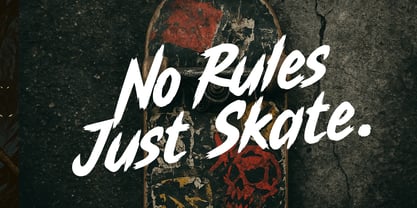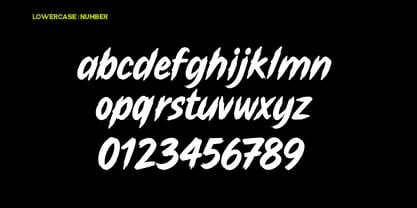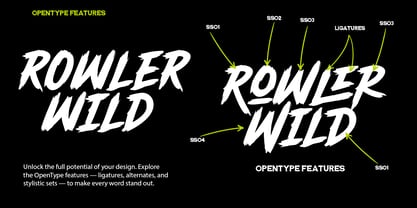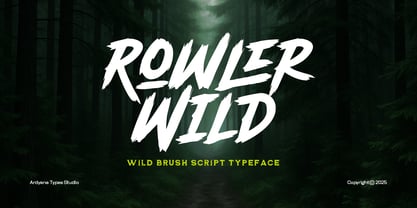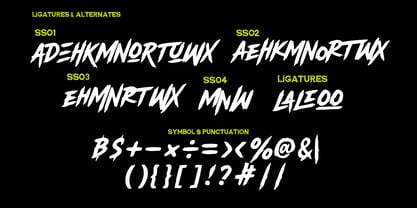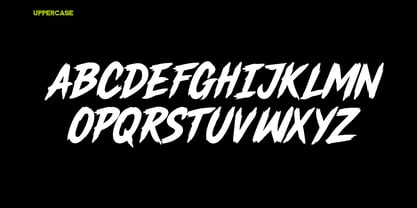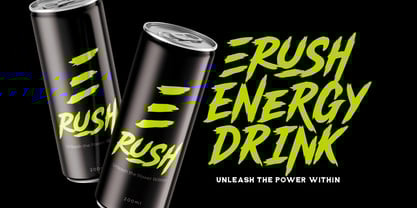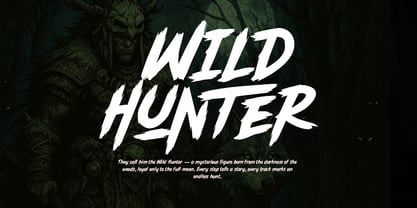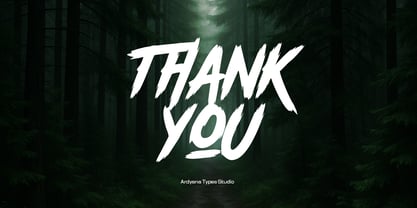
Rowler Wild
by Ardyanatypes
The Rowler Wild Font Family was designed by Ardyana Putra and published by Ardyanatypes. Rowler Wild contains 1 styles.
Rowler Wild is a bold brush script typeface that embodies raw energy, restless creativity, and the spirit of the wild. Each stroke feels alive—rough, spontaneous, and full of motion—like it was painted by hand on rugged canvas beneath the open sky. This font doesn’t just whisper; it shouts with confidence and attitude. Designed to evoke a fearless, outdoor-inspired aesthetic, Rowler Wild infuses authenticity and adventure into your typography. Its unique brush texture adds a human touch, ensuring that every word feels crafted rather than constructed. Ideal for creating striking logos, dynamic posters, apparel graphics, product packaging, and branding for sports and music, this font instantly distinguishes your design with its untamed personality. Rowler Wild excels when you want your message to stand out—raw, expressive, and powerful. It’s perfect for projects that celebrate freedom, motion, and individuality. The dynamic flow of its letters offers versatility: use uppercase for bold statements or mix with lowercase for a more casual, handwritten appearance. More than just a typeface, it’s an attitude—a visual roar that energizes your brand and infuses wildness into your message.
Designers: Ardyana Putra
Publisher: Ardyanatypes
Foundry: Ardyanatypes
Design Owner: Ardyanatypes
Rowler Wild